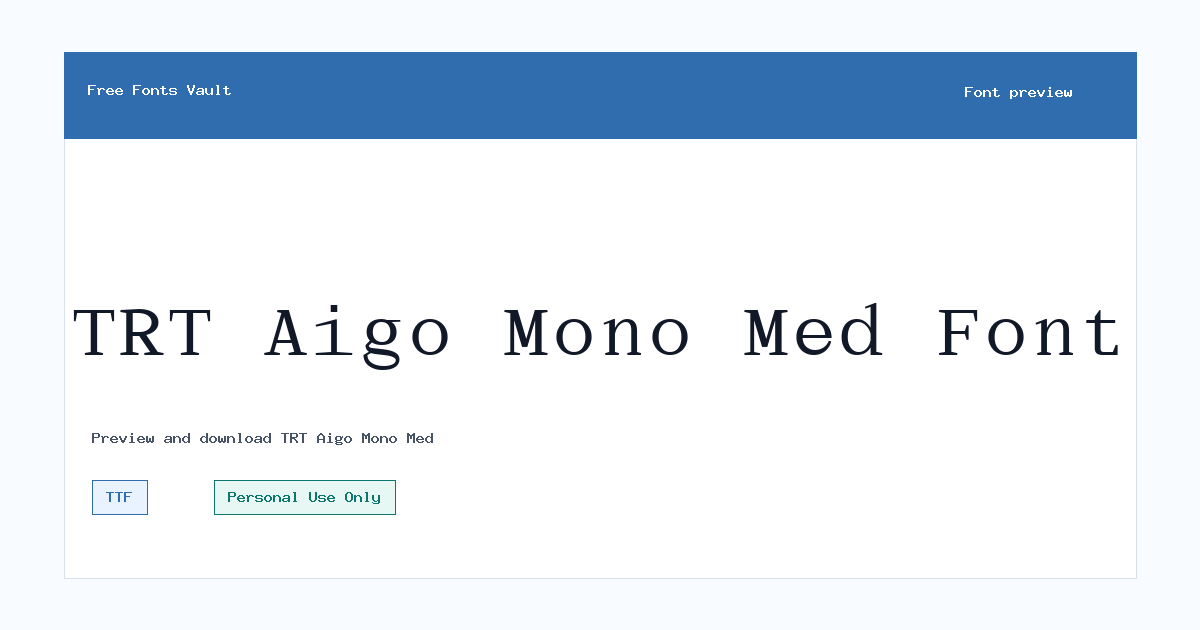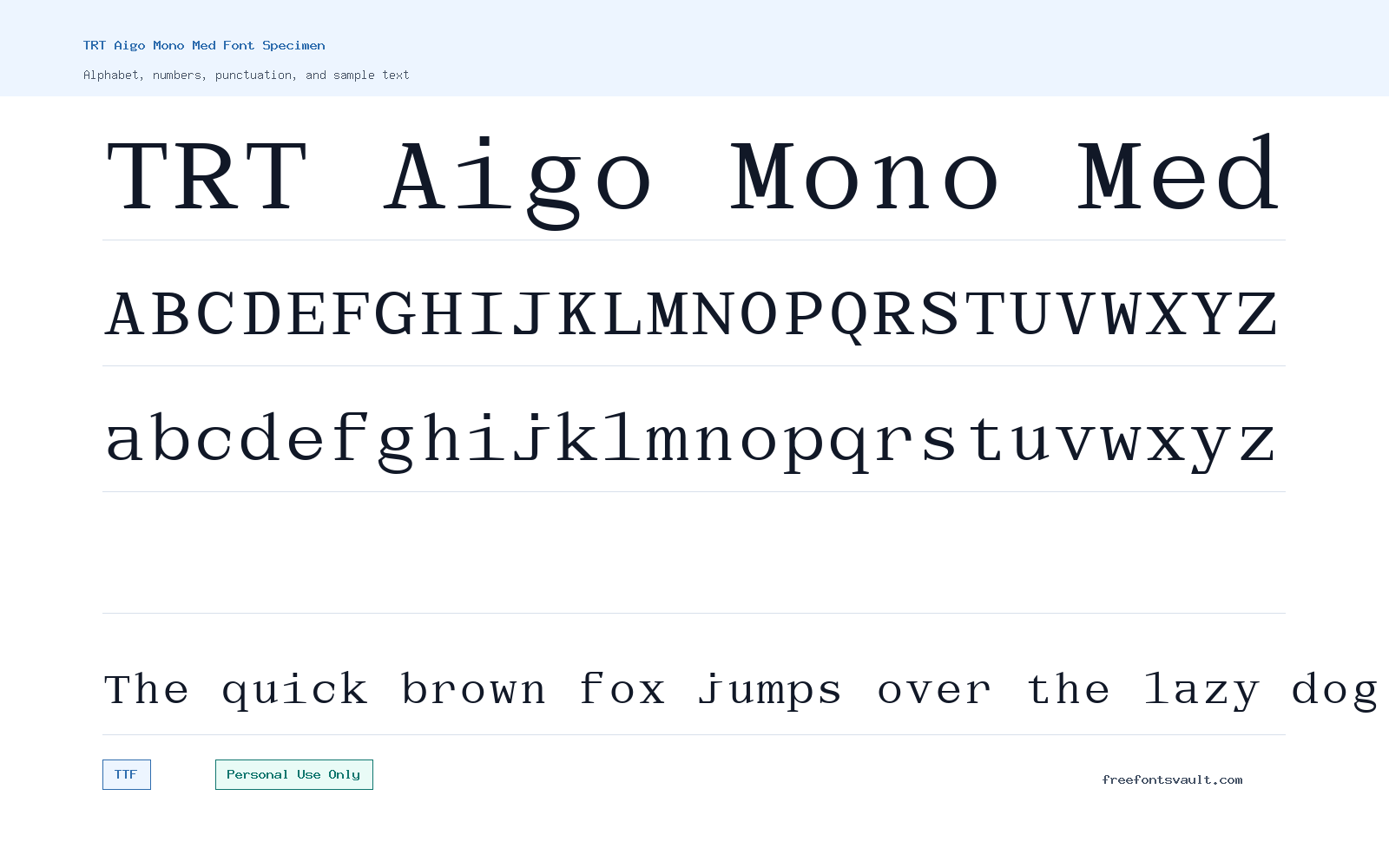
TRT Aigo Mono Med
- Designer Achmad Akbar Afiansyah of Truetype
- Foundry Truetype
TRT Aigo Mono Med is a medium-weight font from the TRT Aigo Mono family, offered as a TTF file for personal-use design testing. It is a practical choice when you want a cleaner, structured type style for short text, mockups, and visual experiments.
TRT Aigo Mono Med carries the direct, orderly feel suggested by its Mono name, with a 500-weight style that sits between regular and bold. That makes it useful for headings, interface-style labels, poster text, and logo drafts where you want the words to feel firm without becoming too heavy. Because the downloadable format is TTF, it can be installed in most desktop design apps and used in preview tools to test spacing, scale, and readability before you commit it to a layout.
Use TRT Aigo Mono Med first in short and medium-length text blocks rather than long reading sections. It should work best for display settings such as title cards, brand concept boards, packaging tests, web hero mockups, quote graphics, and social posts. For logo work, try it in uppercase, title case, and tight letter spacing to see which version keeps the wordmark clear. For posters, pair it with a quieter sans serif or a readable serif for supporting copy so the main font can carry the headline without making the whole layout feel too uniform.
- Medium 500 weight for clear display text, headings, labels, and layout mockups.
- Mono-style family naming makes it a good candidate for structured, technical, editorial, or interface-inspired designs.
- Logo concept testing and wordmark drafts
- Poster headlines and title graphics
- Web design mockups and hero sections
- Editorial layouts, quote cards, and social media visuals
- Packaging concepts and presentation boards
- Short labels, navigation-style text, and interface-inspired typography
TRT Aigo Mono Med is credited to Achmad Akbar Afiansyah of Truetype, with Truetype listed as the foundry.
Is TRT Aigo Mono Med good for posters?
It can be a useful choice for poster headlines, title text, and short display copy. Test it at large sizes and pair it with a simpler font for smaller supporting text.
What should I pair with TRT Aigo Mono Med?
Try a neutral sans serif for clean UI-style layouts, or a readable serif for editorial contrast. Keep the paired font simple so the mono-style display text remains the focus.